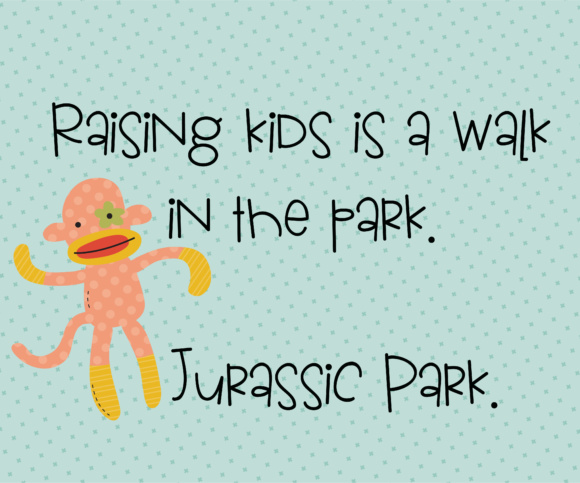
Introduction to Clacker Jax Font
As a designer, there’s nothing quite like the thrill of finding the perfect font for your next creative project. You’re brainstorming ideas, sketching out concepts, and suddenly – it hits you – the perfect font will elevate your design from good to great. For me, that moment came when I stumbled upon the Clacker Jax Font. Its playful, handwritten style had me hooked from the start, and I knew I had to share it with fellow designers.
With its highly legible design and bouncy baseline, Clacker Jax Font is a game-changer for kids-themed headlines and titles. Whether you’re working on a children’s book, a nursery decor project, or a fun promotional campaign, this font is sure to bring a smile to your audience’s face. As a valuable design resource, Clacker Jax Font offers a high-quality, free download option that’s perfect for adding a touch of whimsy to your creative projects.
Key Features of Clacker Jax Font
- High-quality design resource ideal for creative projects, including logos, graphics, and branding materials.
- Unique, hand-crafted font with a distinctive and eye-catching design, making it perfect for adding a touch of personality to your work.
- Designed to be highly legible and readable, even at small sizes, ensuring your message is conveyed clearly and effectively.
Honest Review: Clacker Jax Font
I recently stumbled upon the Clacker Jax Font while searching for a unique design resource for a creative project. This font has truly caught my attention, and I’m excited to share my thoughts with you.
What works well: ✨ The Clacker Jax Font offers a high quality, bold, and playful design that’s perfect for adding a touch of whimsy to your project. The font is available for free download, which is a huge plus for designers on a budget. I also appreciate the transparent background, which makes it easy to use in a variety of design scenarios.
Some limitations: ⚠️ While the Clacker Jax Font is a great addition to any design arsenal, it’s not suitable for every project. The font’s bold design may be overwhelming for more subtle or formal designs, and the free download option may not include as many variations as some other fonts.
Overall impression: I’m thoroughly impressed with the Clacker Jax Font, and I would highly recommend it to designers looking for a unique and high-quality design resource. With its playful design and transparent background, it’s perfect for creative projects that need a little extra flair.
- Unique and playful design
- High quality and bold
Is the Clacker Jax Font suitable for digital or print projects?
The Clacker Jax Font is a versatile design resource that can be used for both digital and print projects. Its high-quality design and transparent background make it suitable for use in a variety of mediums, from website design and social media graphics to brochures and business cards.